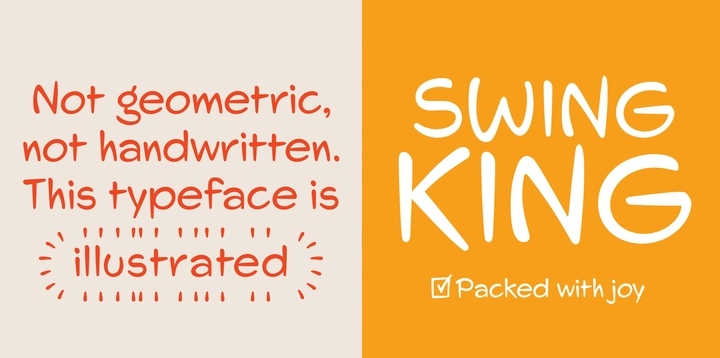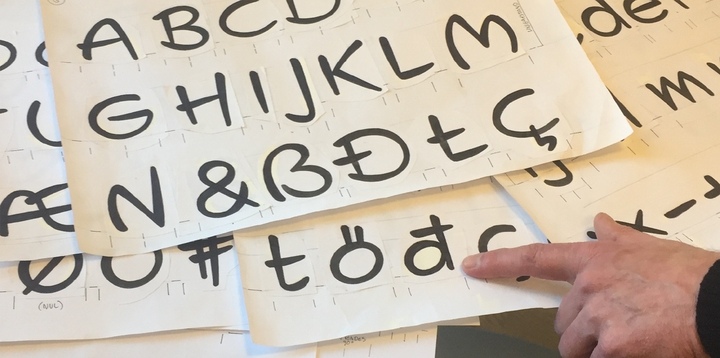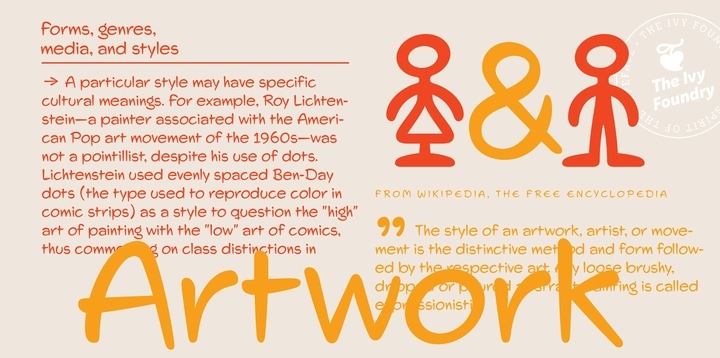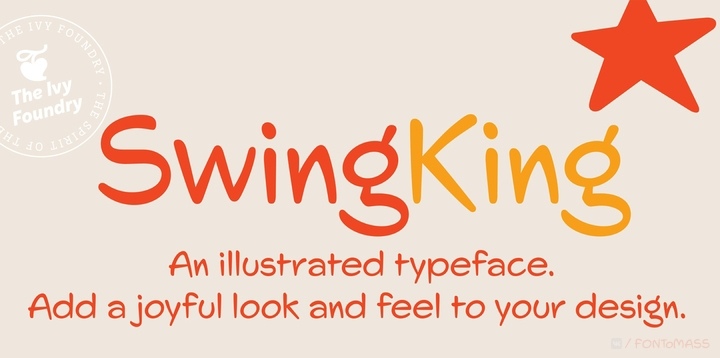
SwingKing Font
SwingKing Font is perfect for jazz club branding, swing dance event materials, vintage music venues, retro entertainment posters, classic nightclub logos, nostalgic album covers, rhythmic social media graphics, musical theater productions, dance studio branding, and timeless entertainment communications.
What makes SwingKing Font so exciting is its rhythmic sophistication that captures the energetic spirit and timeless elegance of the swing era while maintaining contemporary functionality and professional appeal. This dynamic typeface embodies musical heritage and rhythmic excellence, creating typography that swings with authentic jazz culture and celebrates the golden age of American entertainment.
The SwingKing Font family includes light, regular, medium, and bold weights, complete with swing-inspired design features, rhythmic styling elements, and musical characteristics that provide designers with comprehensive tools for creating memorable and authentic typography that honors the legacy of swing music and dance culture.
Step into the spotlight with SwingKing Font Free Download, a masterfully crafted typeface that brings the energetic rhythm and timeless sophistication of swing culture to contemporary design projects. This exceptional font embodies the perfect fusion of musical heritage and modern functionality, making it an ideal choice for brands that celebrate rhythm, entertainment, and the enduring appeal of jazz age elegance.
The rhythmically designed letterforms of SwingKing Font showcase musical elegance with swing character that creates instant recognition of entertainment quality and cultural authenticity. Each character displays careful attention to maintaining the energetic spirit that defines swing culture while ensuring contemporary readability and professional versatility. The font's rhythmic construction and musical spacing contribute to its authentic appearance and entertainment appeal.
Music venues and entertainment brands consistently choose SwingKing Font for projects requiring authentic musical character and rhythmic sophistication. The comprehensive character set includes uppercase and lowercase letters, numerals, extensive punctuation, international accents, and swing-inspired elements that provide complete support for music industry applications and entertainment-focused design compositions.
The timeless rhythm of SwingKing Font ensures exceptional performance across both traditional print and modern digital platforms. Whether developing jazz venue identities, creating musical event materials, or designing nostalgic entertainment campaigns, this remarkable typeface delivers consistent swing that resonates with audiences appreciating musical heritage and authentic jazz culture.
Transform your most rhythmic projects with SwingKing Font Free Download. This extraordinary typeface brings musical sophistication and swing culture elegance to typography, making it the essential choice for designers who create experiences that celebrate the timeless appeal of jazz music and the enduring spirit of swing era entertainment.